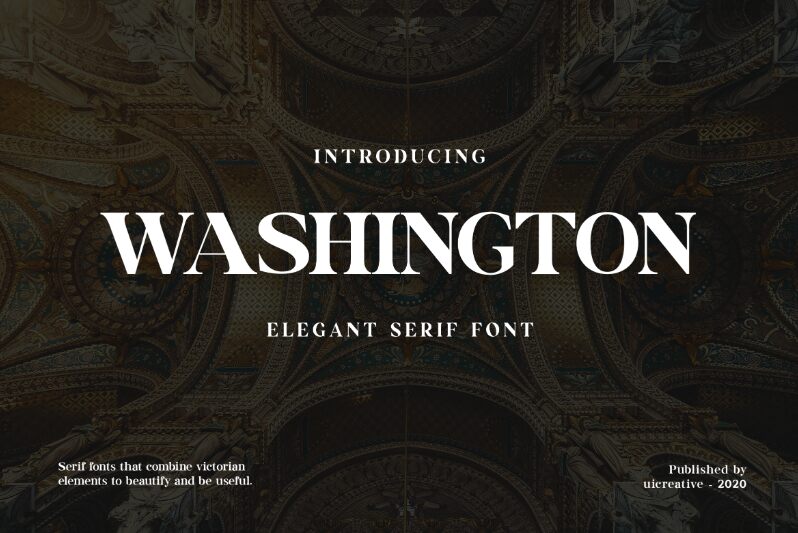
Washington
Washington font by UI Creative is a majestic serif typeface made with classic beauty in mind. It carries itself formally and elegantly, with each glyph refined to deliver a traditional enjoyable reading experience. Washington is at home in the old New England capital but won’t hesitate to impress users in every intended use when it gets the chance.
Possibilities are endless with this free serif font! Invite Washington to your new brand visual identity, logo design work, magazine cover, book cover, business card design project and more. Classic or modern is not really an issue here since few typefaces can be as versatile as this one for professional designers.